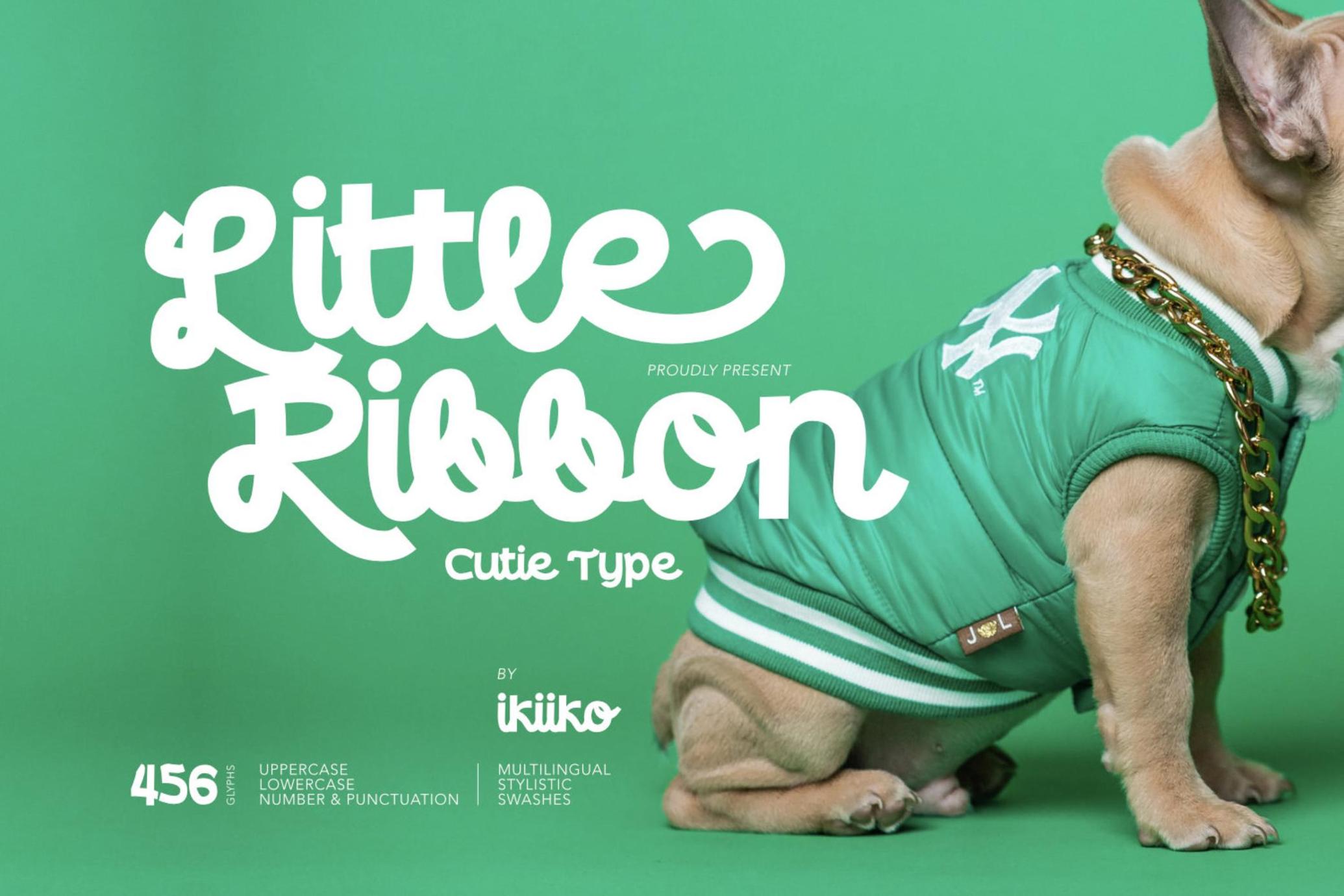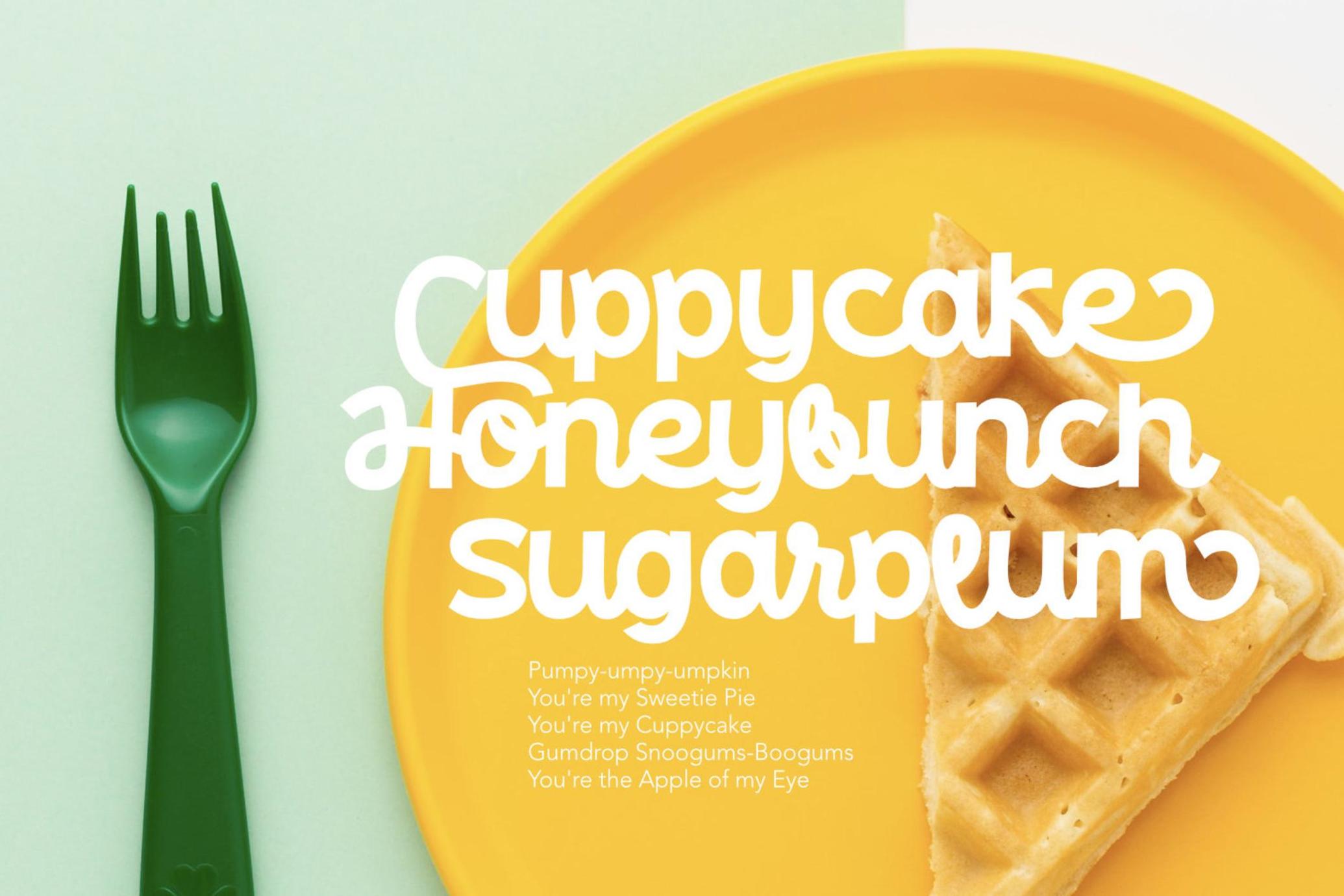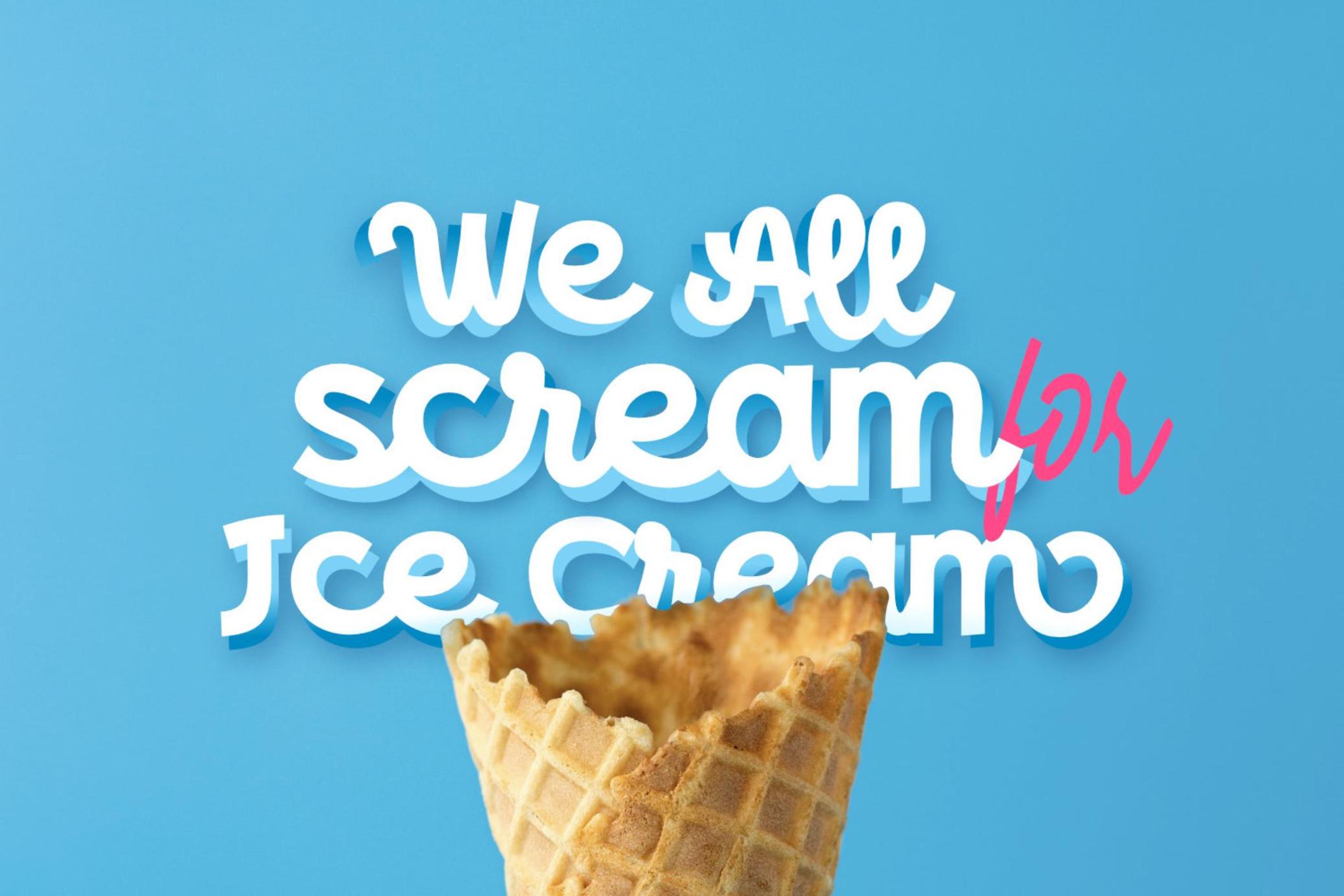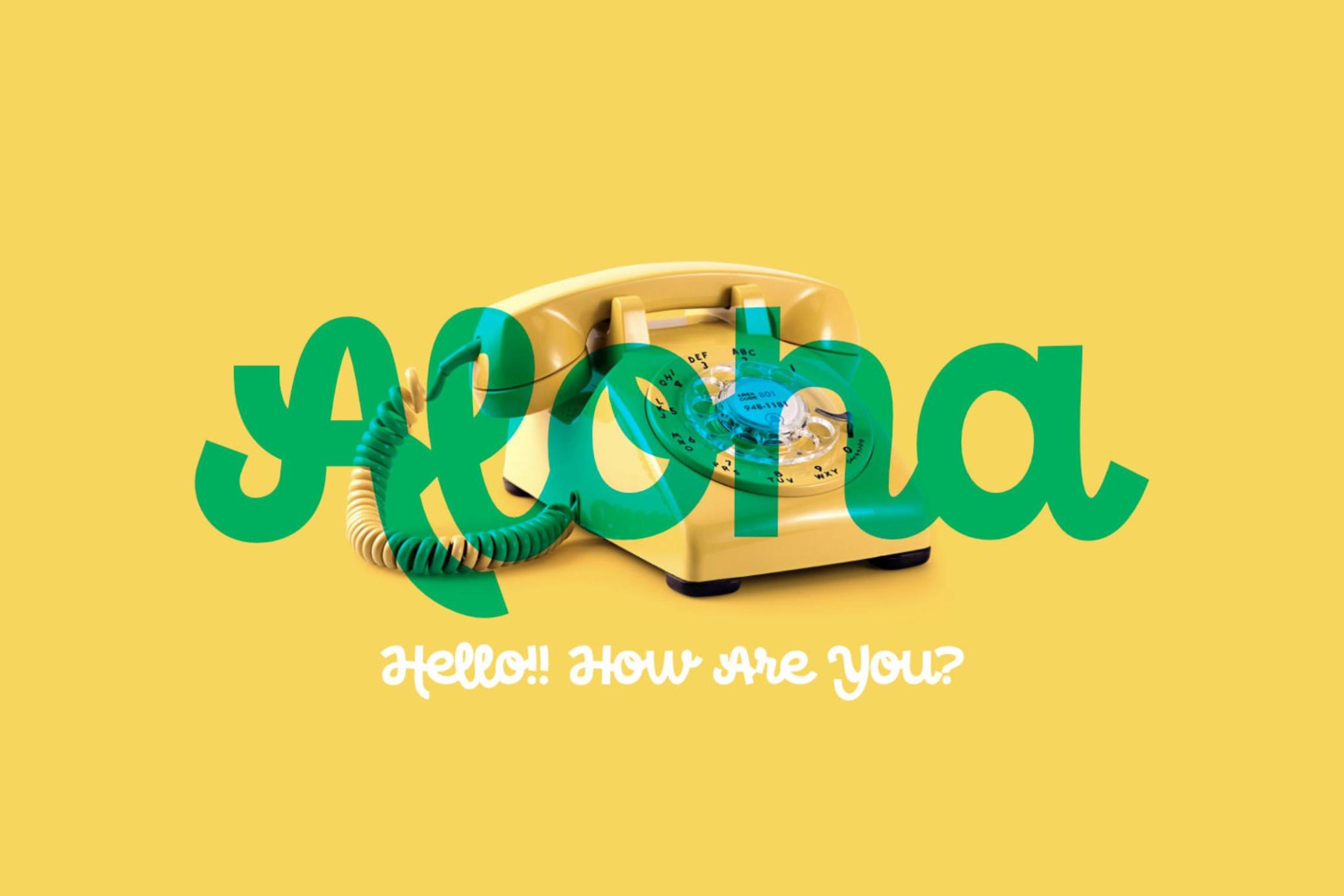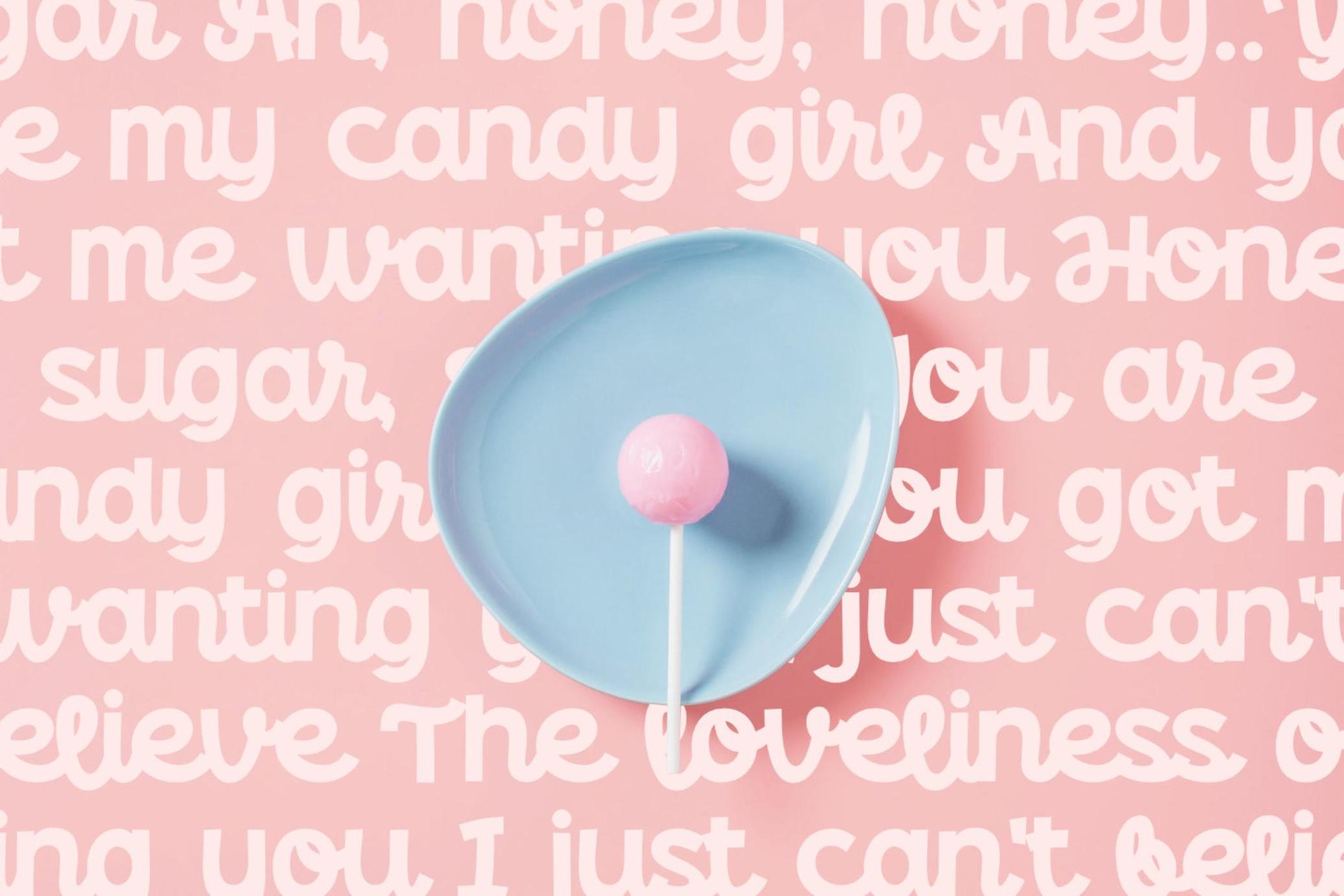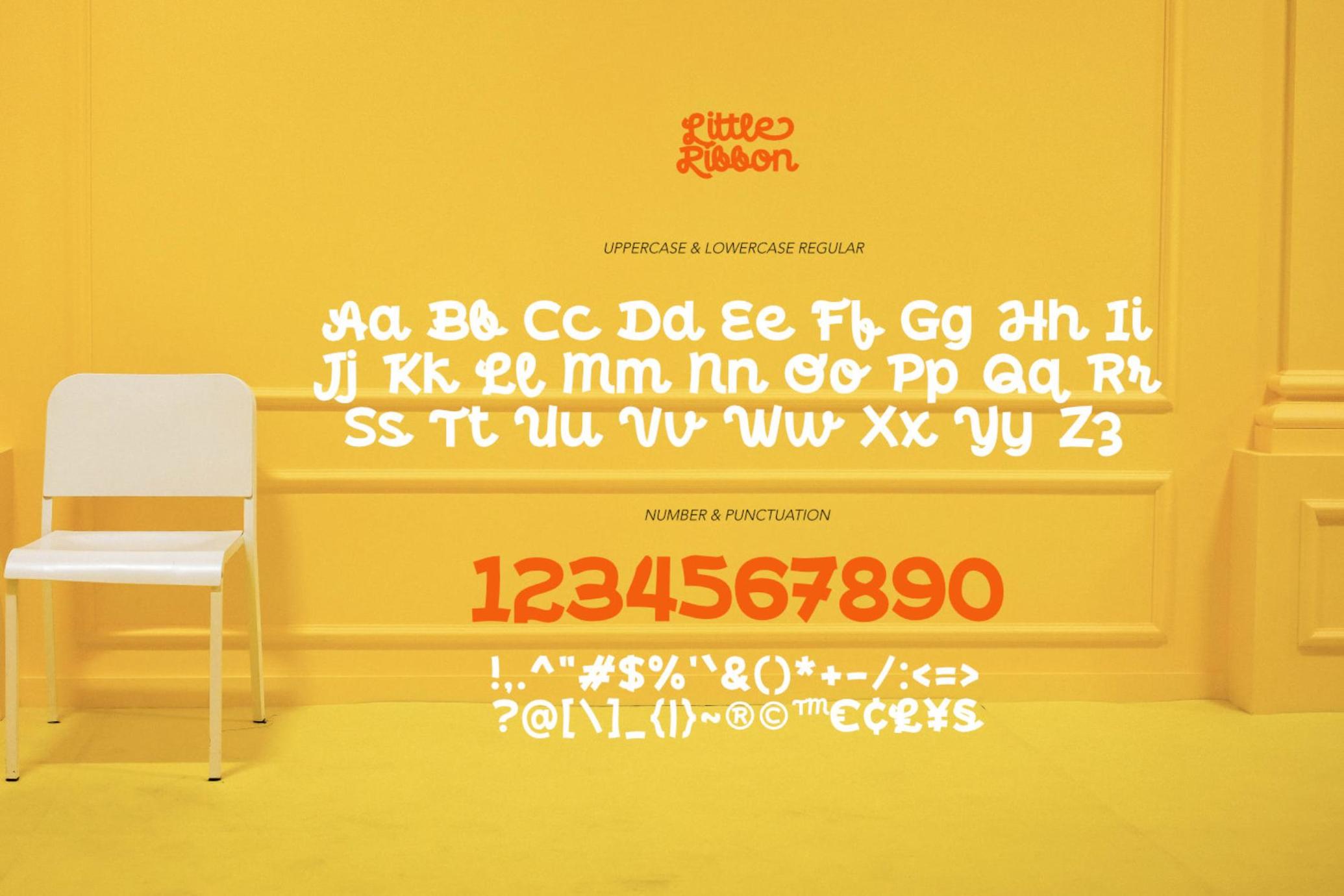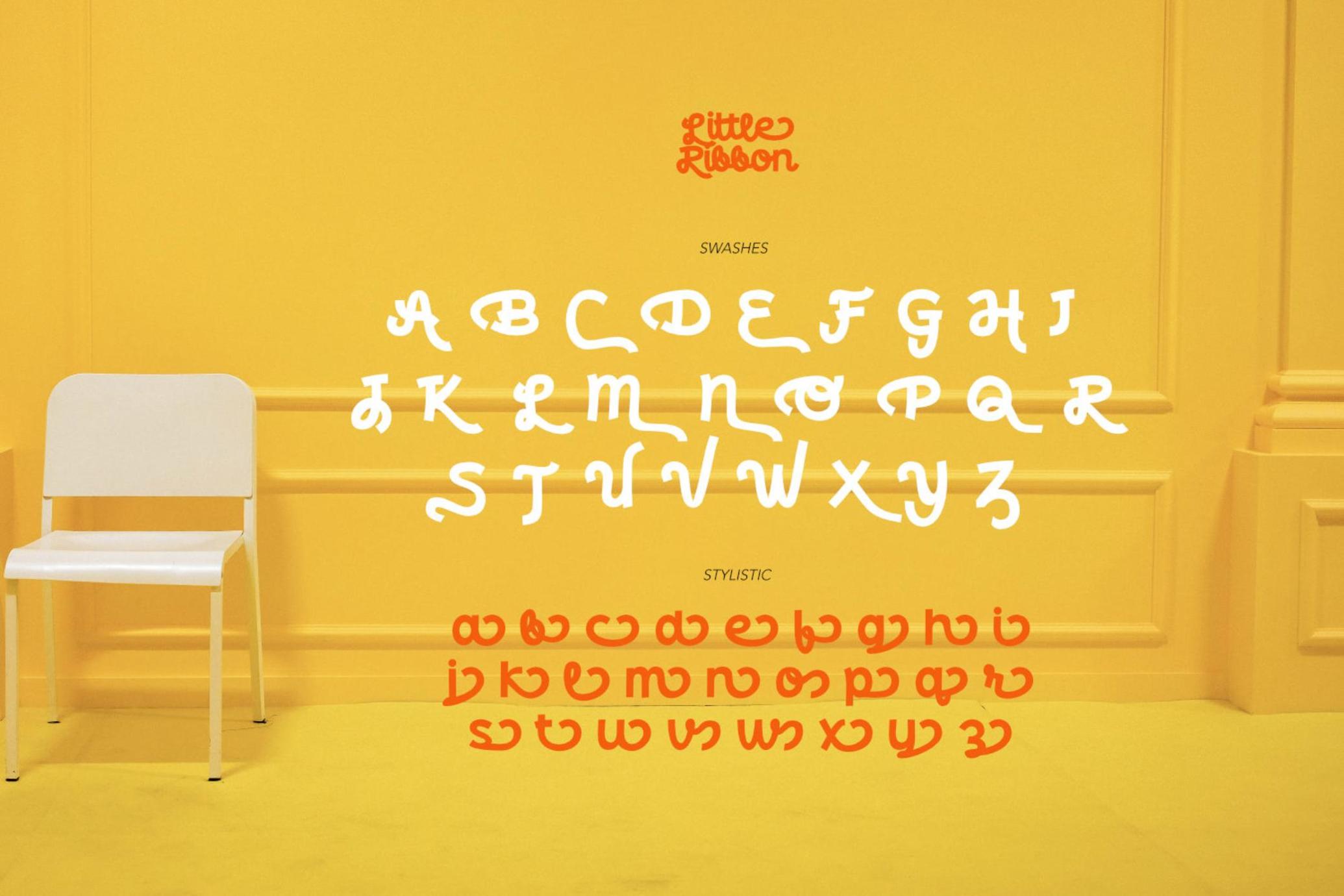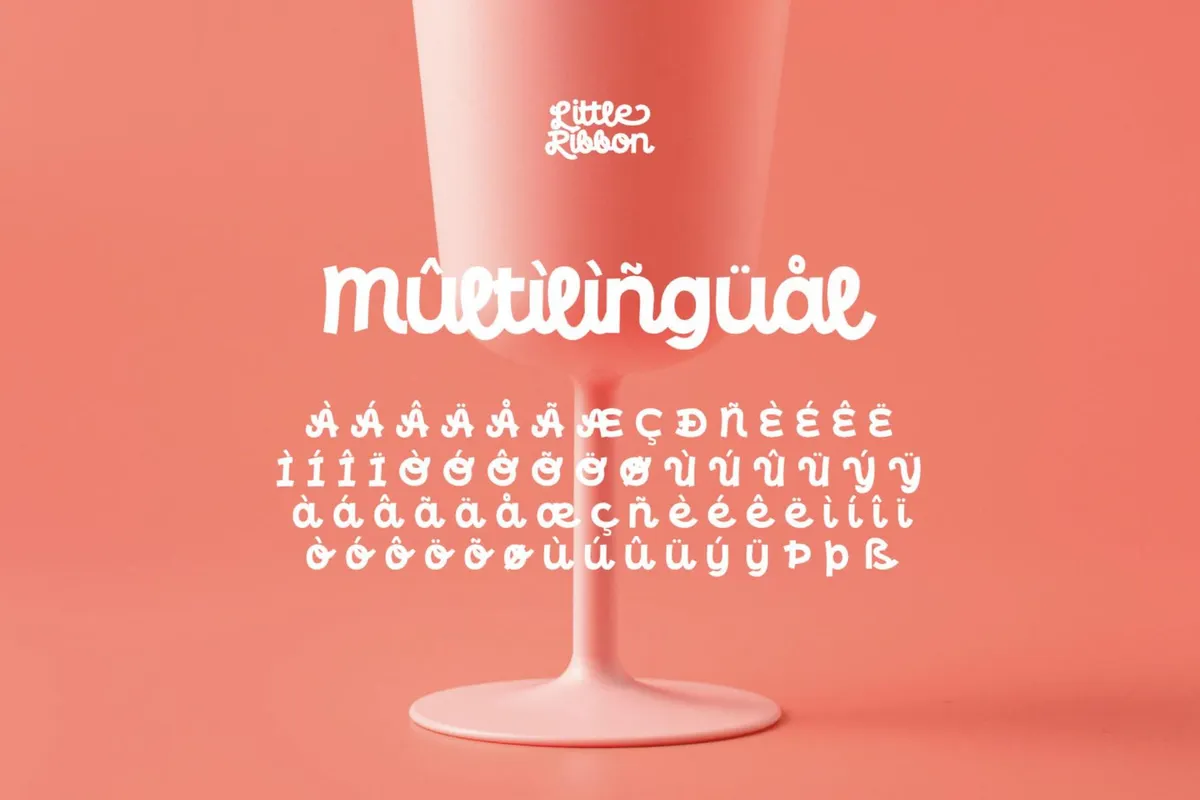
Little Ribbon - Cutie Font
Little Ribbon is a beautiful handwritten typeface with bold shapes combining simple lines. This letter is suitable if you want to show a cheerful impression or playful design with solid color. This typeface is perfect for an kids stuff like ads, poster, flyer, or email blast. And also good for packaging product, food & beverages, quotes, or simply as a stylish text overlay to any background image.
- Number & Punctuation
- Stylistic & Swashes